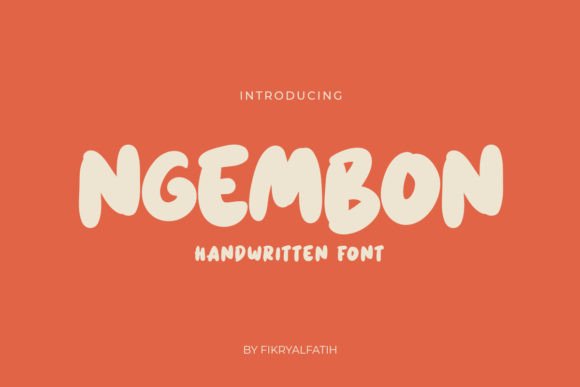
Introducing Ngembon Font: The Exquisite Script Font That Will Ignite Your Creativity
In the realm of digital artistry, typography reigns supreme, setting the tone and mood of your expressions. Meet Ngembon Font, a captivating script typeface that dances across the screen with its playful and irregular glyphs. This extraordinary creation by Fikry Alfatih is not just a font; it's an enchanting journey into the world of visual storytelling.
Immerse yourself in the luxurious hand-drawn effect that Ngembon Font effortlessly exudes. Its meticulously crafted characters bring a touch of elegance and charm to every word, transforming your designs into captivating masterpieces. Whether you're crafting heartfelt quotes, designing logos that speak volumes, or building a brand image that exudes sophistication, Ngembon Font is your perfect companion.
Picture your words adorned with the enchanting strokes of Ngembon Font, captivating your audience with a visual symphony. Your logo designs will radiate a unique identity, leaving an indelible mark on the minds of those who encounter it. Elevate your brand image to new heights, conveying a sense of luxury and sophistication that resonates with your target audience.
Ngembon Font's versatility knows no bounds. Unleash your creativity in crafting product packaging that tells a story, merchandise that speaks to the heart, and social media posts that ignite engagement. Its playful nature adds a touch of whimsy to your designs, while its intricate details command attention, ensuring your message cuts through the digital clutter.